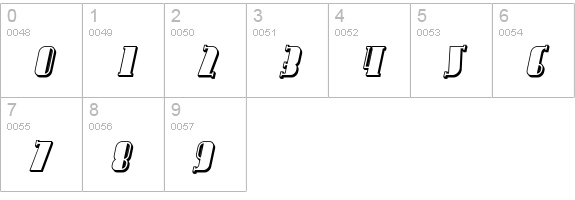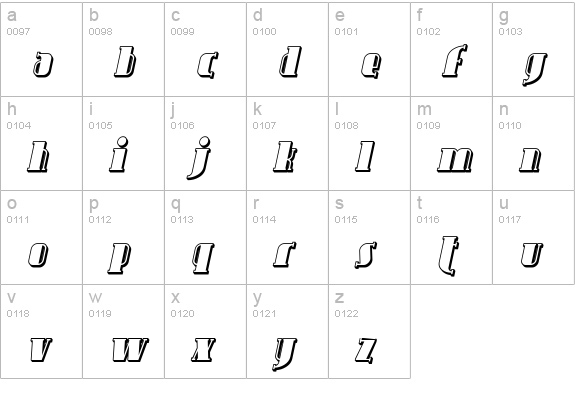
Avondale Shaded Italic is a distinctive, italic variant in the Avondale typeface family \xE2\x80\x94 well suited to design and typography projects.
Avondale Shaded Italic is a beautifully crafted font with a unique blend of elegance and modernity. The carefully designed italics and subtle shading give this font a sophisticated and stylish appearance, making it perfect for a wide range of design projects. Whether you are looking to add a touch of class to your branding, create eye-catching headlines, or design elegant invitations, Avondale Shaded Italic is sure to impress. What makes Avondale Shaded Italic even more appealing is that it is available for free download at FontsMarket.com. This means that you can easily access this stunning font and use it in your projects without any cost. Don't miss out on the opportunity to enhance your designs with the sleek and refined Avondale Shaded Italic font – download it today and elevate your creations to the next level.